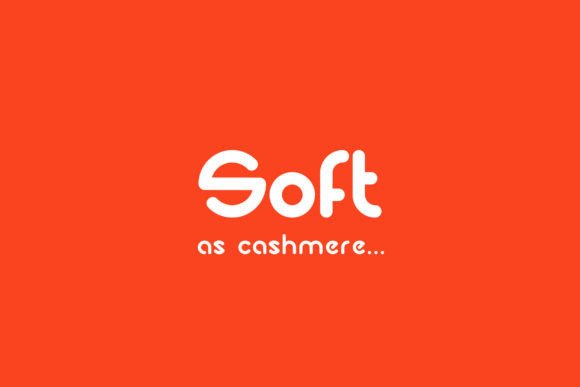
Introducing Ring Soft Font: The Ultimate Display Font for Modern Creations
In the world of typography, fonts play a crucial role in conveying messages, expressing emotions, and creating visual identities. With the vast array of fonts available, it can be challenging to find the perfect one that suits your creative needs. However, if you’re looking for a cool, varied, and trendy-looking display font, look no further than Ring Soft Font. This incredible font is designed to elevate any creation, making it an excellent addition to your font library.
What Makes Ring Soft Font Stand Out?
Ring Soft Font is a modern display font that boasts a unique blend of cuteness and prettiness. Its trendy design makes it perfect for a wide range of creative projects, from branding and advertising to packaging and digital media. Here are some key features that make Ring Soft Font an exceptional choice:
• Cool and Varied Design: Ring Soft Font features a distinct, modern design that’s both cool and varied. Its unique style ensures that your creations stand out from the crowd.
• Trendy-Looking: This font is designed to keep up with the latest design trends. Its trendy look makes it perfect for projects that require a fresh and contemporary feel.
• Cuter than Ever: Ring Soft Font is not just a font; it’s a design statement. Its cute and charming design makes it perfect for projects that require a touch of playfulness and whimsy.
• Much Prettier: With its elegant and refined design, Ring Soft Font is much prettier than other fonts in its category. Its beauty lies in its simplicity and versatility.
The Many Uses of Ring Soft Font
Ring Soft Font is an incredibly versatile font that can be used for a wide range of creative projects. Here are some examples of how you can use this amazing font:
• Branding and Logo Design: Create a lasting impression with Ring Soft Font. Its unique design makes it perfect for branding and logo design projects.
• Advertising and Marketing: Use Ring Soft Font to create eye-catching ads and marketing materials that grab attention.
• Packaging Design: Add a touch of elegance and sophistication to your packaging designs with Ring Soft Font.
• Digital Media: Use Ring Soft Font to create stunning digital media, including social media graphics, blog posts, and website headers.
The Benefits of Using Ring Soft Font
Ring Soft Font offers numerous benefits that make it an excellent addition to your font library. Here are some of the advantages of using this amazing font:
• Elevate Your Creations: Ring Soft Font has the potential to elevate any creation, making it perfect for designers who want to take their work to the next level.
• Save Time: With Ring Soft Font, you can create stunning designs in no time. Its unique design and versatility save you time and effort.
• Stand Out from the Crowd: Ring Soft Font is a one-of-a-kind font that helps you stand out from the crowd. Its unique design ensures that your creations are noticed.
• Easy to Use: Ring Soft Font is easy to use and compatible with various design software, making it perfect for designers of all levels.
Pairing Ring Soft Font with Other Fonts
Pairing Ring Soft Font with other fonts can create a stunning visual effect. Here are some tips for pairing this font with other fonts:
• Pair with Sans-Serif Fonts: Pair Ring Soft Font with sans-serif fonts, such as Arial or Helvetica, for a clean and modern look.
• Pair with Script Fonts: Combine Ring Soft Font with script fonts, such as Pacifico or Great Vibes, for a elegant and sophisticated look.
• Pair with Serif Fonts: Pair Ring Soft Font with serif fonts, such as Times New Roman or Georgia, for a classic and timeless look.
In conclusion, Ring Soft Font is an exceptional display font that’s perfect for modern creations. Its cool, varied, and trendy-looking design makes it an excellent addition to your font library. With its versatility, ease of use, and stunning design, Ring Soft Font is sure to elevate any creation. Whether you’re a designer, artist, or entrepreneur, this font is a must-have for anyone who wants to create visually stunning designs.